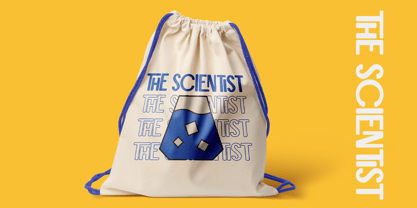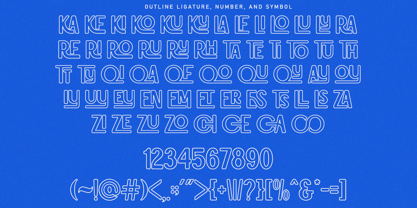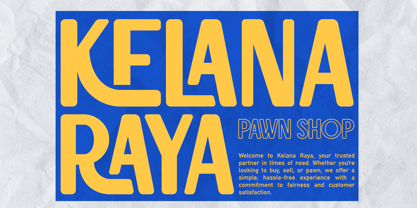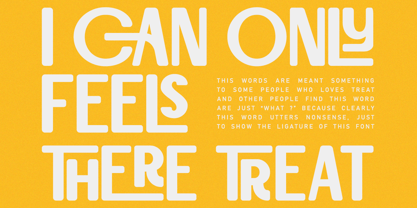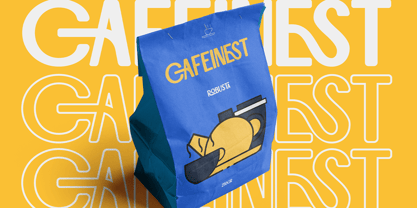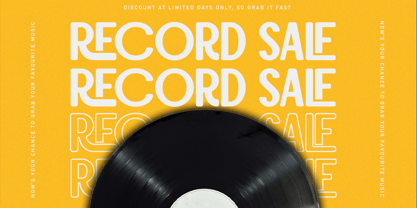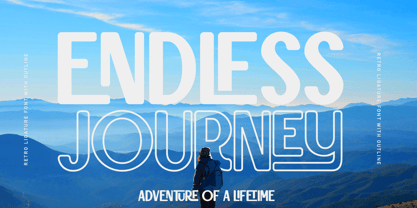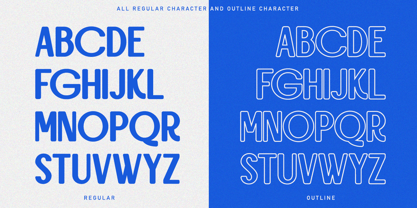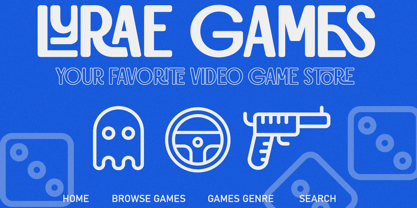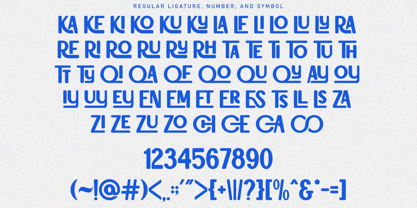
Chiroto
by Say Studio
The Chiroto Font Family was designed by Mussyayin and published by Say Studio. Chiroto contains 2 styles and family package options. More about this family
Chiroto is a retro ligatures font inspired by the vibrant and nostalgic vibes of the 1980s retrowave culture. This font encapsulates the energetic spirit of the era with its striking lines and retro aesthetics. Ideal for projects that aim to evoke a sense of vintage cool and perfect for both digital and print designs.
Chiroto is perfect for an retro stuff like poster design, magazine layout, appareal, packaging product, quotes, or simply as a stylish text overlay to any background image.
- Chiroto
- Chiroto Outline
- 60+ Ligatures Character
- Multilingual Support
Designers: Mussyayin
Foundry: Say Studio